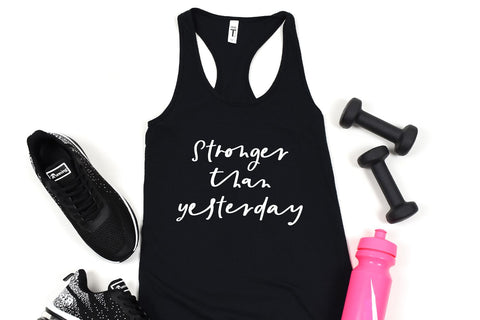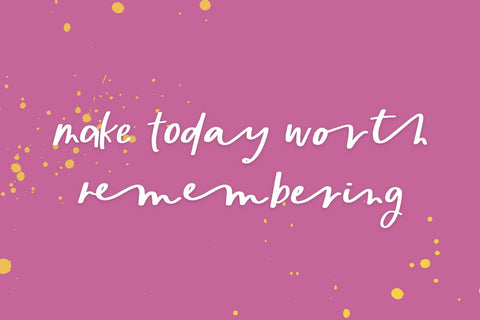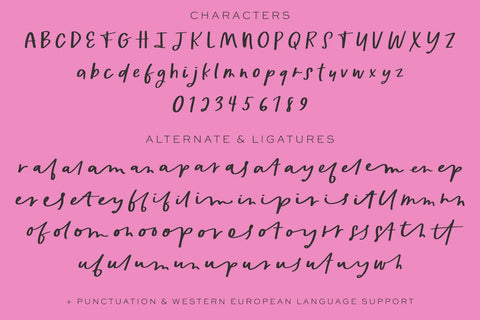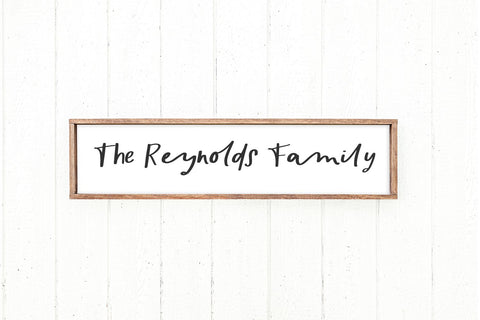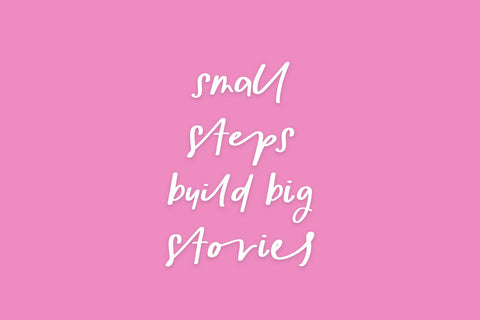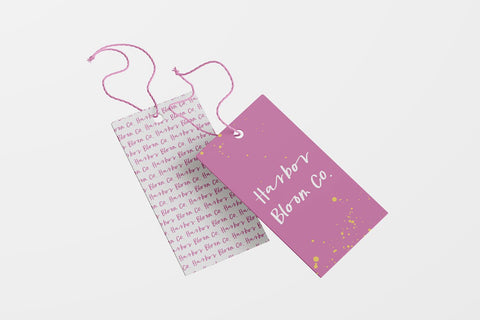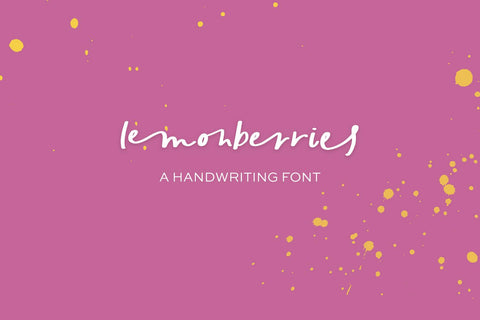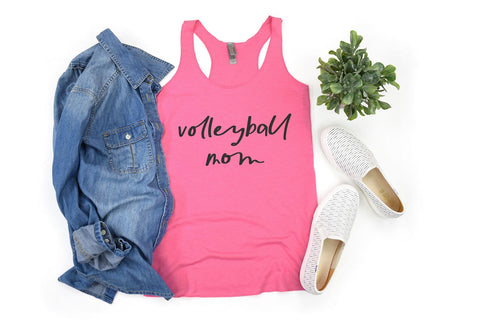
Lemonberries Script
Lemonberries Script is a marker-style cursive font, packed full of ligatures to customize the handwritten look & feel of your text. This font works best in professional design software with ligatures turned on. Lemonberries is perfect for bespoke logo & branding projects, print, marketing materials, website design, social media, quote graphics, greeting card & paper product design, & more.
- upper + lowercase characters A-Z and a-z
- numbers 0-9
- punctuation
- 1 lowercase alternate - r
- 150 ligatures - after, al, am, an, ap, ar, as, at, ay, ef, al, em, en, ep, er, es, et, ey, ff, if, il, im, in, ip, ir, is, it, ll, mm, nn, of, ol, om, on, oo, op, or, es, et, oy, rr, ss, st, th, tt, uf, ul, um, un, up, ur, us, ut, uy, wh